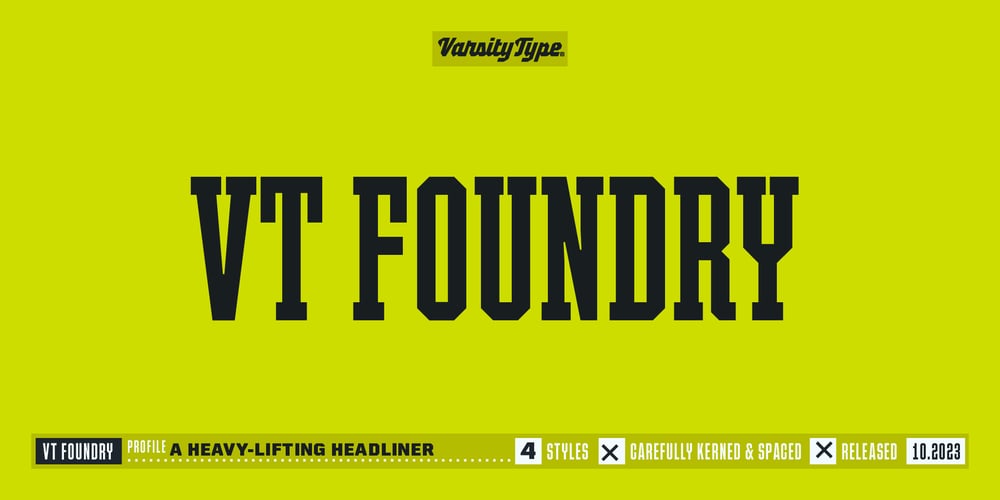
VT Foundry Font Family was designed by CJ Zilligen and published by VarsityType. VT Foundry contains 4 styles and family package options. A condensed block with character and style.The primary typeface for VarsityType, VT Foundry is a heavy-lifting headlining workhorse equipped with everything but a hard hat. It’s a 4-font condensed family that’s full of character — built by the ones who build characters (fonts! Get it?) — featuring Sans, Slab, Slant, and Stencil styles. Inspiration for this font comes from the “Property of Athletic Dept.” t-shirts, a recognizable part of American culture that represent affiliation with a group, team, or program. VT Foundry now represents our font foundry, lettermakers of sport. Take it home and allow it to represent your initiative, too.